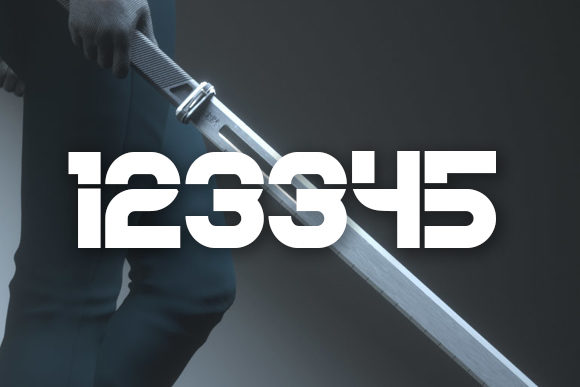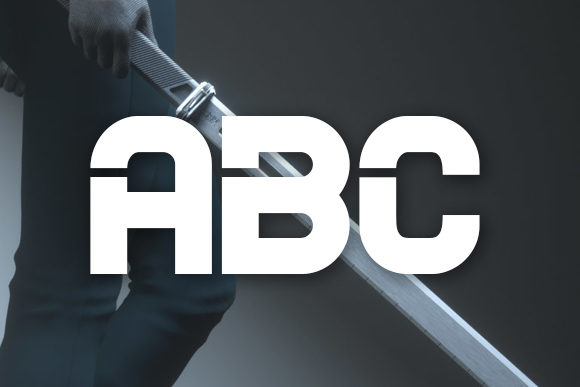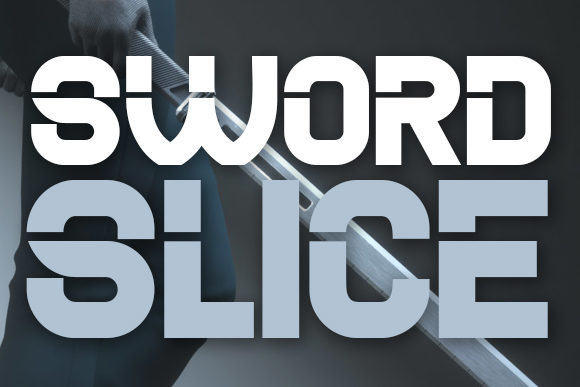
The Blader Font: A Designer’s New Best Friend
I’ll never forget the time I was working on a logo design project for a client who wanted something modern, edgy, and attention-grabbing. I had a clear vision of what I wanted to create, but I was struggling to find the perfect font to bring it all together. That’s when I stumbled upon the Blader font, and let me tell you, it was love at first sight! 😍
Blader is an awesome display font that features a unique feel, making it perfect for creating logos, social media posts, greeting cards, and much more! In this article, I’ll share my honest review of the Blader font, provide a step-by-step guide on how to use it on different platforms, and explore similar fonts that you might love.
• Unique and modern design that’s perfect for making a statement
• Highly versatile and can be used for various design projects
• Easy to read, even in large sizes
• Supports OpenType features, glyphs, and stylistic alternates
• May not be suitable for body text due to its display font nature
• Some users might find the font a bit too bold or overpowering
• Limited availability of language support
Exploring OpenType Features, Glyphs, and Stylistic Alternates
One of the best things about Blader font is its support for OpenType features, glyphs, and stylistic alternates. These features allow you to customize the font to suit your design needs. For example, you can use:
• Ligatures to create custom letter combinations
• Stylistic alternates to change the font’s appearance
• Glyphs to add special characters and symbols
The Blader font was designed by a team of creatives who wanted to create a unique and modern display font. Inspired by the latest design trends and typography, they crafted a font that’s both stylish and functional.
Q: Is Blader font suitable for body text?
A: No, Blader font is a display font and may not be suitable for body text. It’s best used for headlines, titles, and short paragraphs.